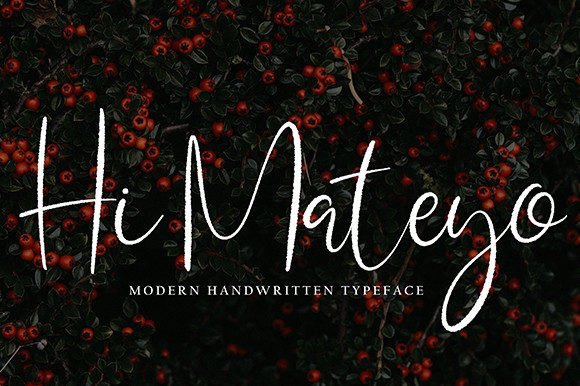
Embark on an enchanting journey with Hi Mateyo Font, a calligraphy treasure that captures the essence of grace and charm. This beautifully crafted script font, designed by the creative minds of Pineungtype and Missinklab, is a visual masterpiece that will elevate your designs to new heights.
Immerse yourself in the world of Hi Mateyo, where each letter dances with elegance and flows with effortless beauty. Its delicate strokes and well-balanced characters create a harmony that is both captivating and timeless. The result is a font that seamlessly blends modern aesthetics with a touch of classic charm, making it the perfect choice for a wide range of creative projects.
Whether you're designing enchanting children's invitations, heartwarming greeting cards, or whimsical logos, Hi Mateyo Font is the ultimate companion. Its versatility knows no bounds, allowing you to effortlessly bring your creative visions to life. Let your imagination soar as you explore the boundless possibilities that await you with this remarkable font.
Dive into the depths of Hi Mateyo's versatility and discover a font that effortlessly complements a multitude of design styles. Its gentle curves and graceful strokes lend themselves perfectly to projects exuding warmth, joy, and a touch of nostalgia. From playful illustrations to heartfelt quotes, Hi Mateyo's presence adds an undeniable charm that captivates hearts and imaginations.
Step into a world where creativity flourishes and let Hi Mateyo Font guide you on an artistic adventure. Its enchanting essence will transform your designs into captivating works of art, leaving a lasting impression on all who behold them. Embrace the magic of Hi Mateyo and unlock the gateway to a world of endless creative possibilities.